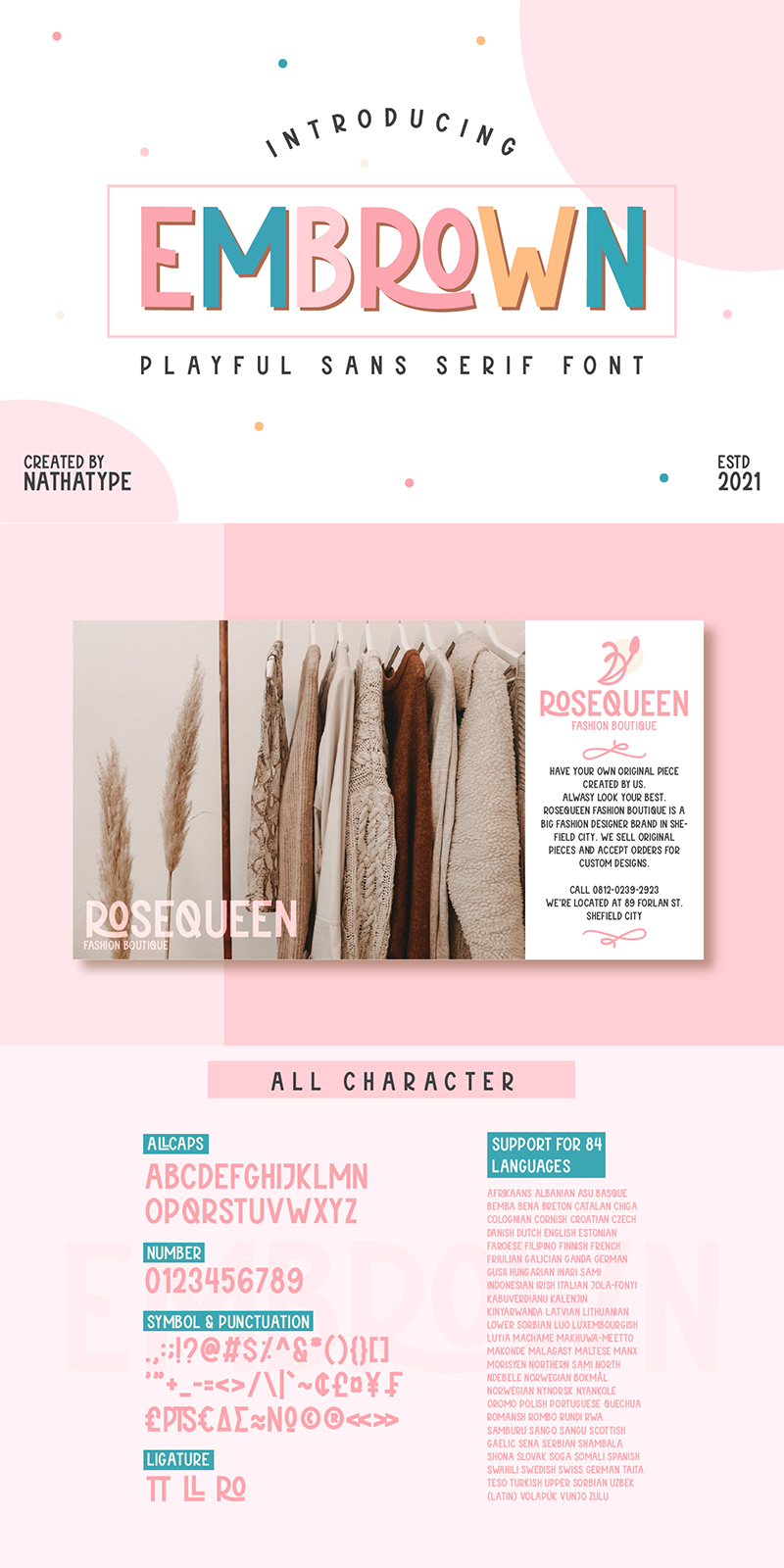
Embrown-sans Font
Designed by Natha Type
About Embrown-sans
Embrown is a vibrant sans-serif font that brings a sense of fun and energy to your designs. Embrown stands out with its playful style, injecting a sense of fun and whimsy into every letter.